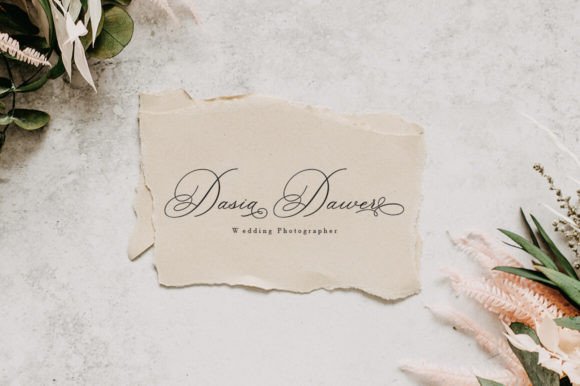
Asima Font
Asima Script is a sweet calligraphy font, including Regular. This font is casual and pretty with swashes. Can used for various purposes. such as logos, product packaging, wedding invitations, branding, headlines, signage, labels, signatures, book covers, posters, and quotes.